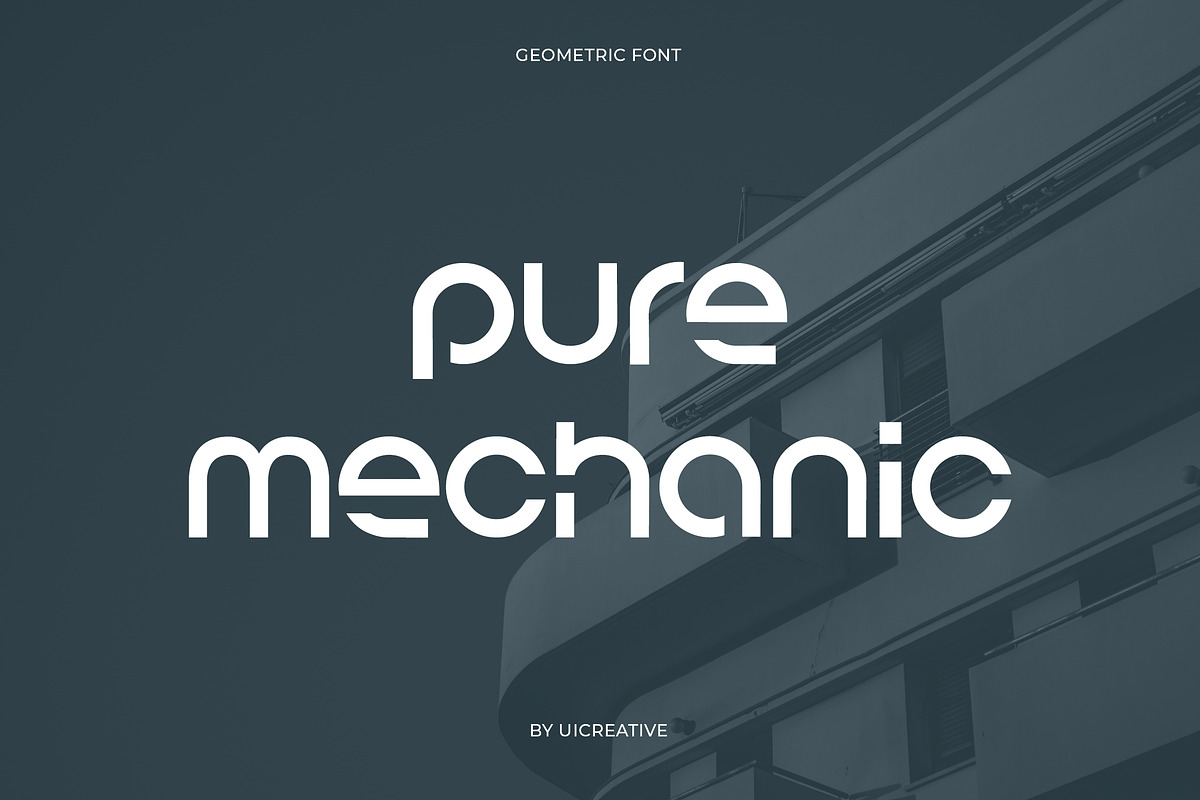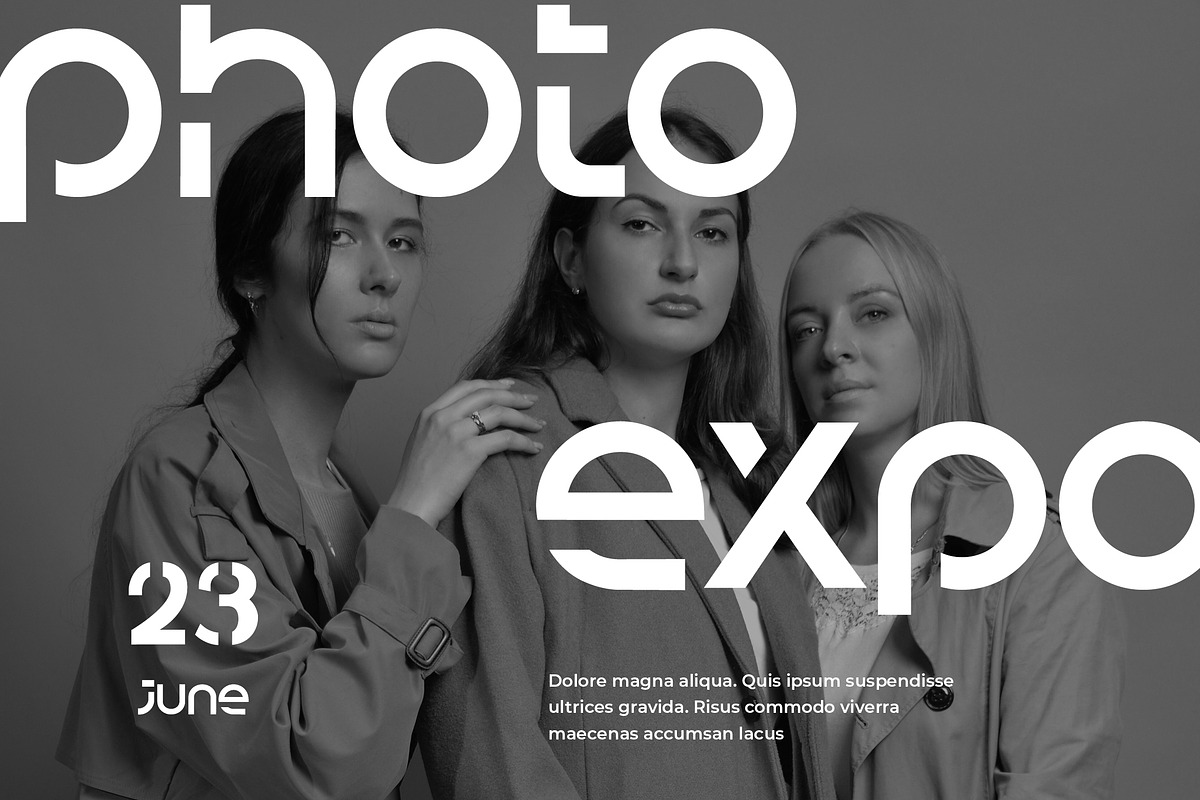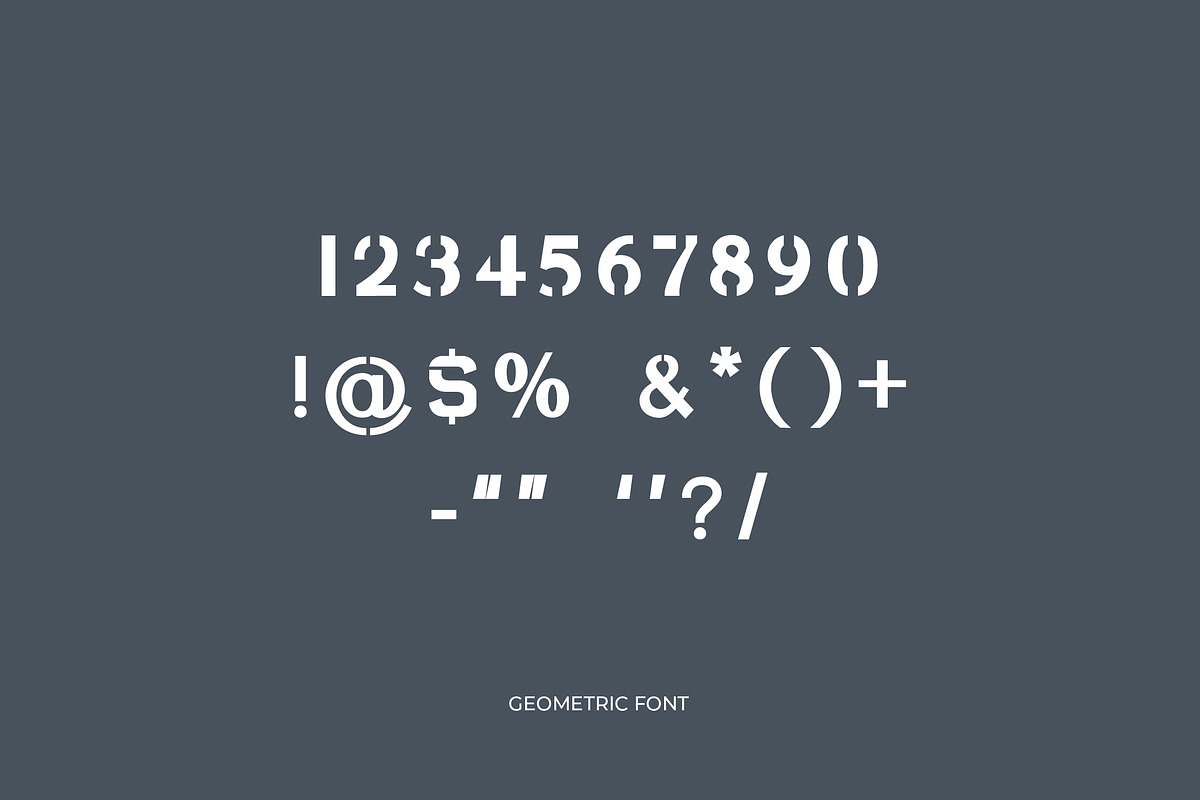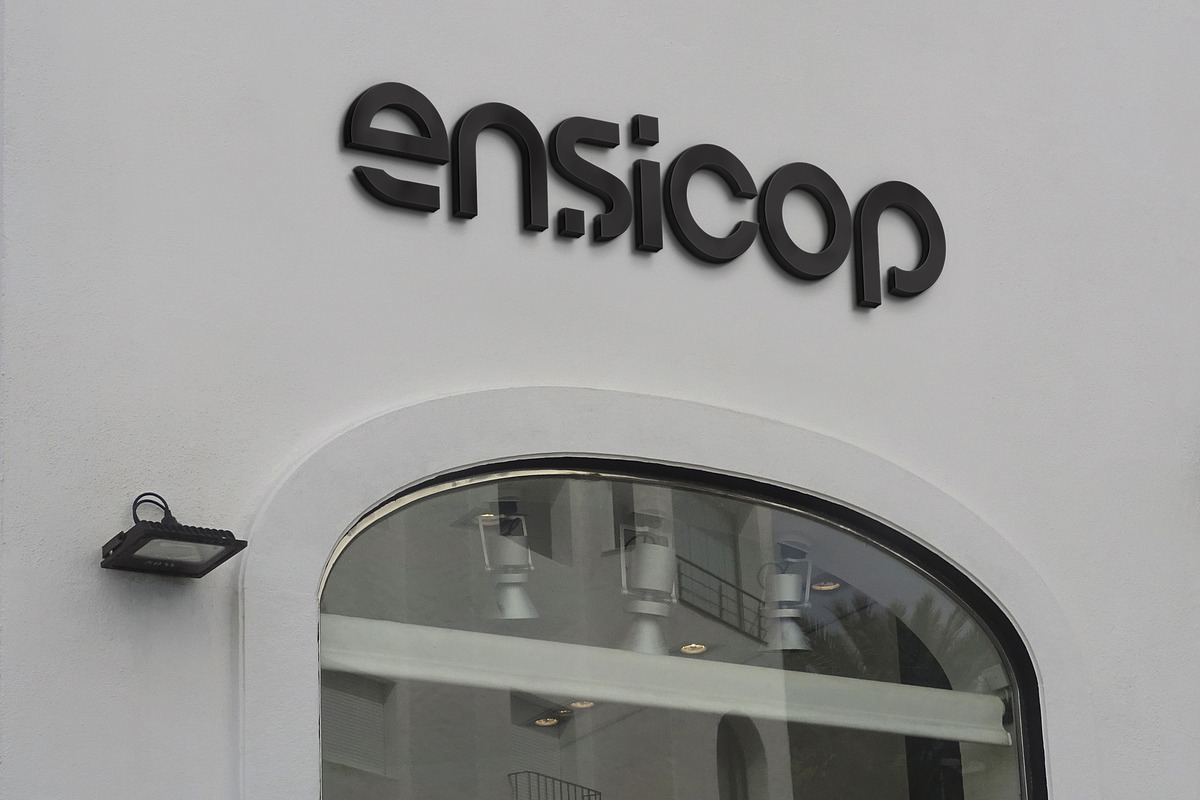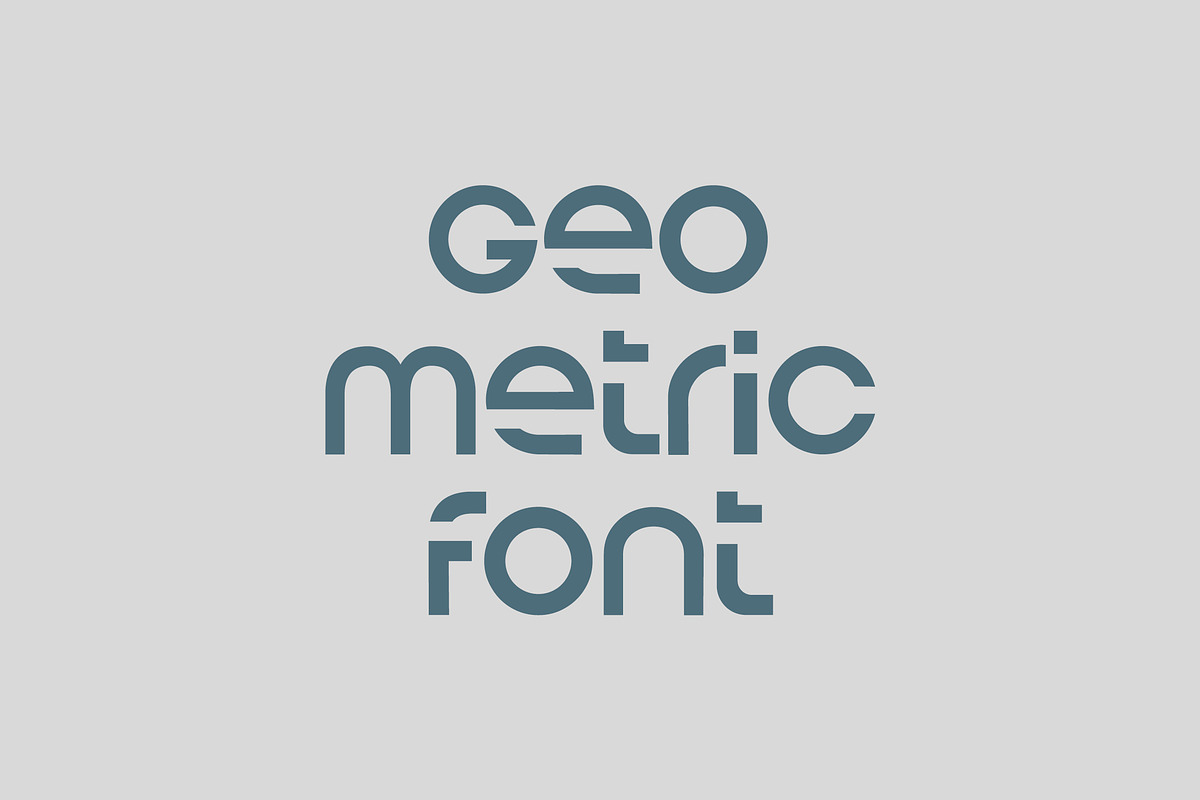
Pure Mechanic Futuristic Sans Serif
Introducing our new product the name is Pure Mechanic Futuristic Sans Serif Font. Modern Serif font that feels beautiful classy, elegant, and modern. This font is ideally suited for a wide variety of projects, such as signature, stationery, logo, wedding, typography quotes, magazine or book covers, website headers, clothing, branding, packaging design, and more. Also, fashion-related branding or editorial design displays both masculine and feminine qualities.